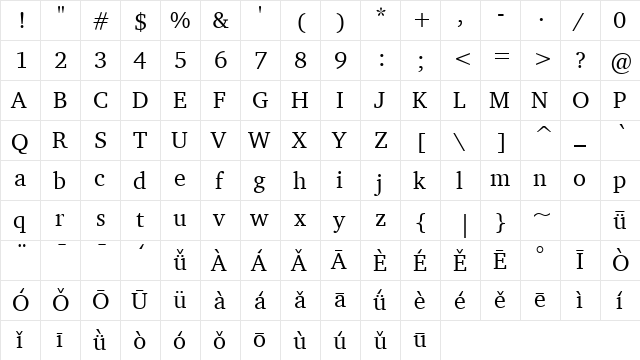
Rosetta Tones Regular
Design Context for Rosetta Tones Typeface
Rosetta Tones offers clean, dependable letterforms without strong stylistic allegiance, making it a practical choice for designers who need flexibility.
Pro Tip: Pair Rosetta Tones with a font of contrasting weight or personality to build a more expressive typographic hierarchy.